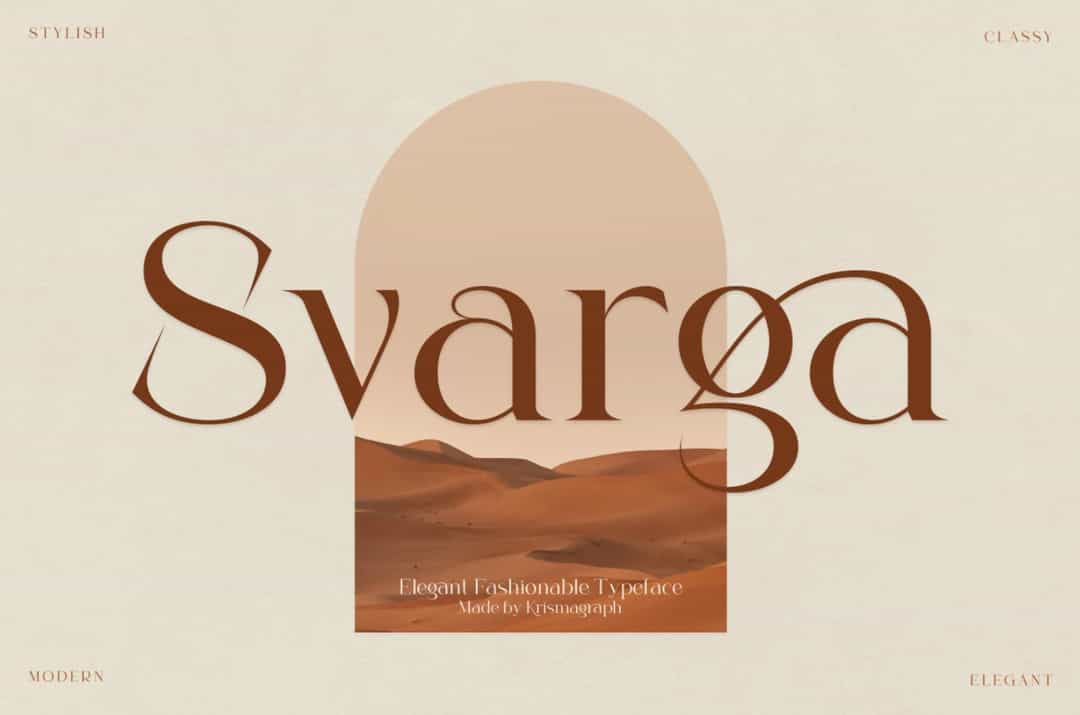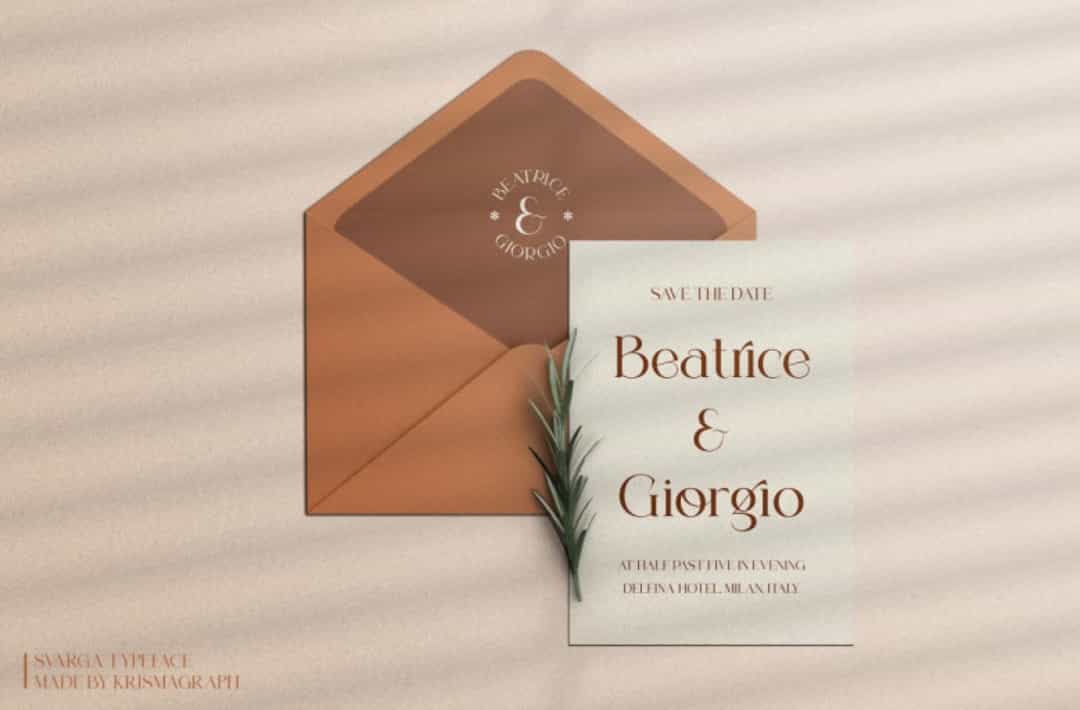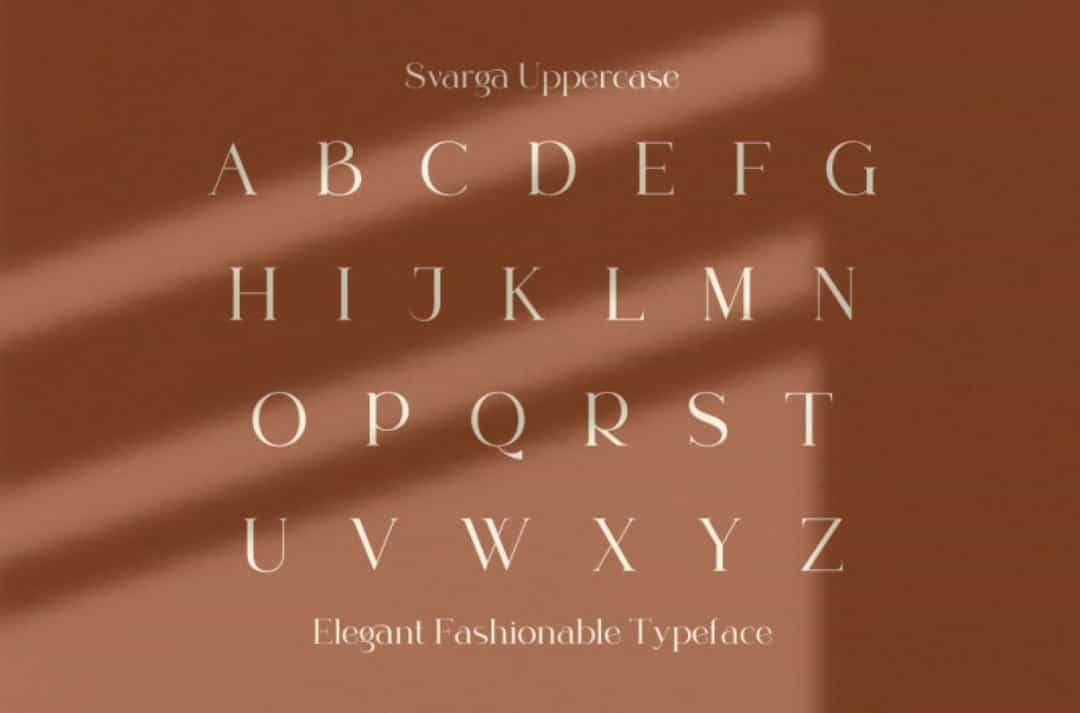
Discover Svarga Font, part of the Serif collection—a versatile and unique font perfect for adding a personal touch to your projects. Download it for free and enjoy crafting designs with style, from invitations to social media posts. This font is available exclusively for personal use, giving you the freedom to create without limits. Unlock your creativity with Svarga Font today!
Svarga Typeface, designed by our brand new “Svarga”, is an elegant fashion typeface. Svarga stands out as being modern yet classic; perfect for logos, magazines, social media sites and all types of content creation.